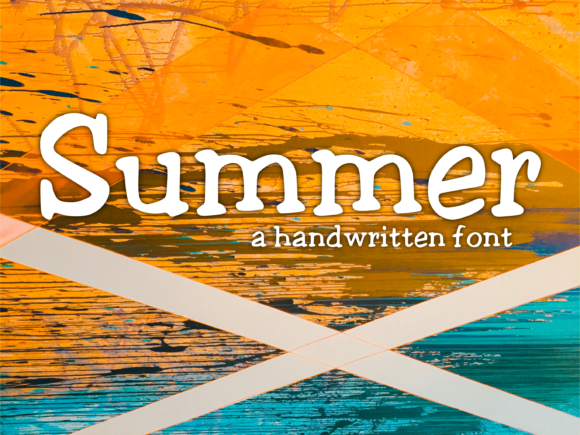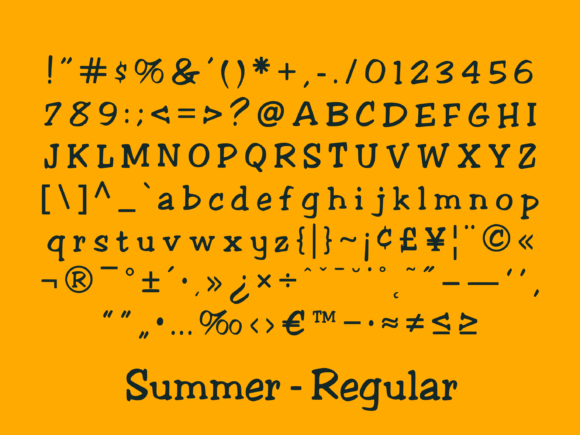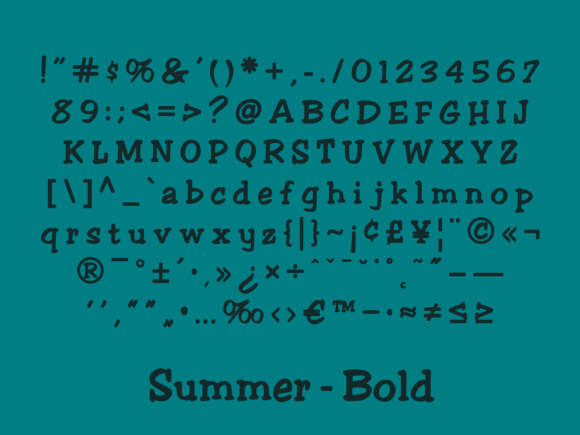
Summer Font
About Summer Font
“Summer”: Embrace Clean, Relaxed, and Friendly Vibes with this Handwritten Gem
Introducing “Summer,” a handwritten font that effortlessly embodies a clean, relaxed, and friendly aesthetic. With its neat and simple style, this font becomes a versatile companion, suitable for a wide variety of designs. From casual occasions to more formal settings, “Summer” has the potential to become your favorite go-to font, adding a touch of warmth and approachability to any project.
The charm of “Summer” lies in its handwritten quality, bringing an authentic and personal touch to your designs. The clean lines of each character contribute to an overall simplicity that is both modern and timeless. Whether you’re working on invitations, social media graphics, or any other design project, this font ensures a fresh and uncluttered appearance.
The relaxed nature of “Summer” makes it perfect for conveying a laid-back and friendly atmosphere. Imagine using this font for beach party invitations, vacation-themed graphics, or any design that aims to evoke a sense of ease and comfort. The letters flow effortlessly, creating a sense of fluidity that adds to the overall relaxed vibe of the font.
The simplicity of “Summer” is its strength, allowing it to adapt seamlessly to various design contexts. It is equally at home on product packaging, greeting cards, or even in digital spaces like websites and social media posts. The versatility of this font makes it a reliable choice, capable of enhancing the visual appeal of your projects without overwhelming the overall design.
Whether it’s a handwritten note, a friendly message, or a creative project that requires a personal touch, “Summer” rises to the occasion. Its friendly demeanor makes it approachable and engaging, making it an ideal choice for designs that aim to connect with the audience on a more personal level.
In conclusion, “Summer” is more than just a font; it’s a design companion that effortlessly blends clean aesthetics with a relaxed and friendly vibe. Its versatility ensures that it can be your favorite go-to font for a wide range of occasions. Embrace the warmth and approachability of “Summer,” and let it enhance your designs with its clean, relaxed, and friendly handwritten charm.